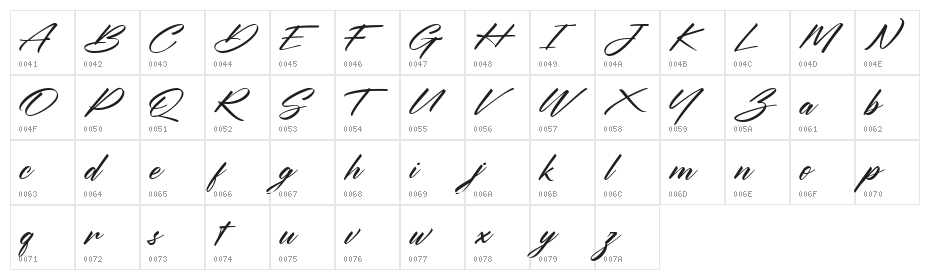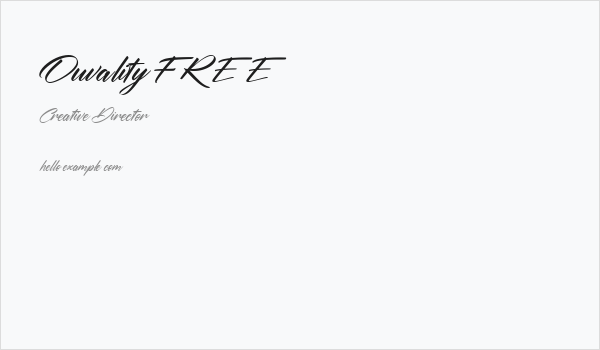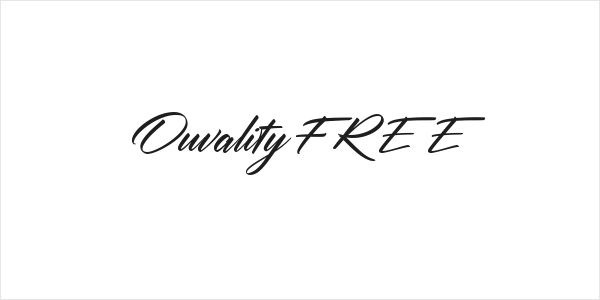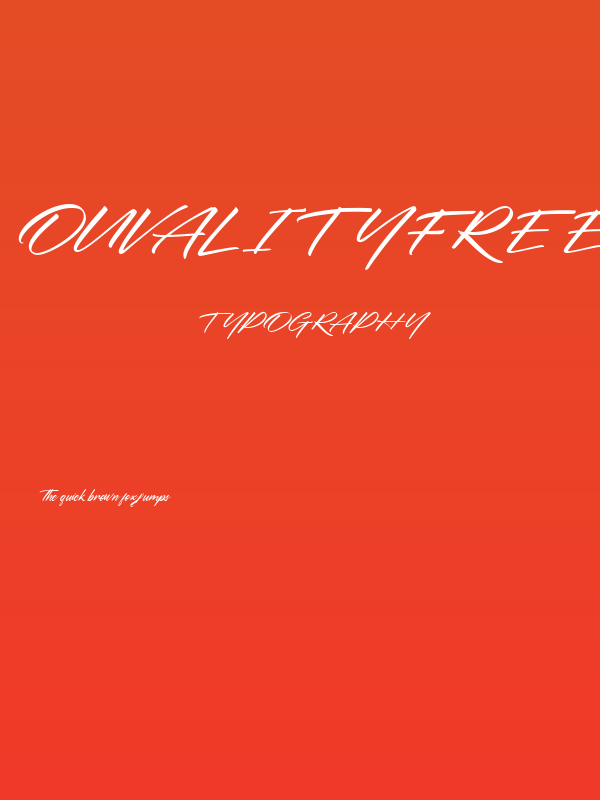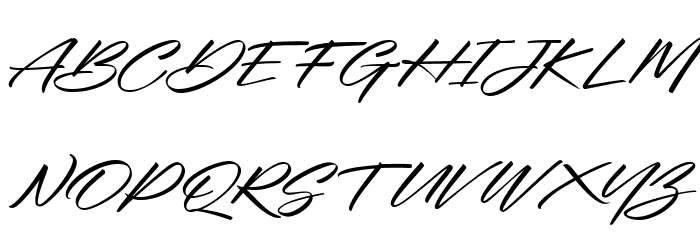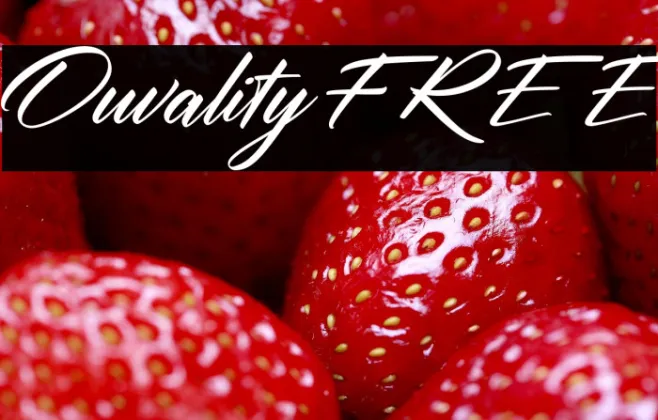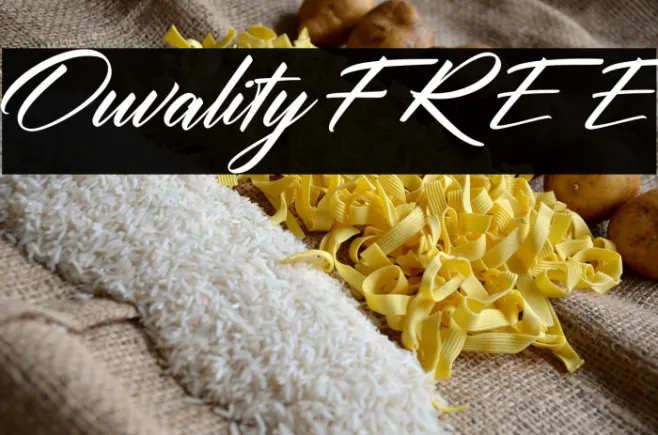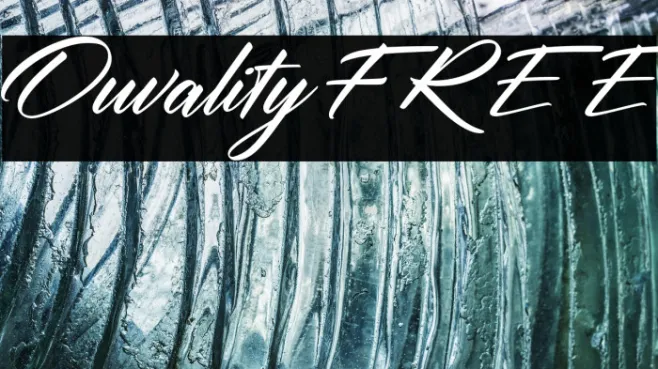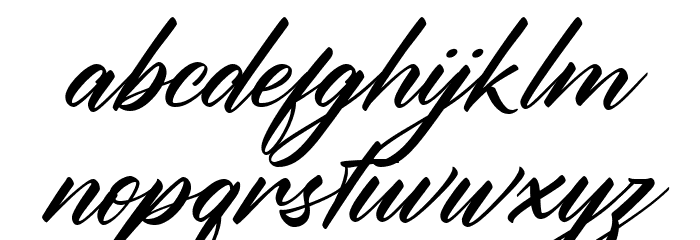
Ouvality FREE Font
Ouvality FREE Description
This font features a dynamic and elegant script style, characterized by its fluid, cursive strokes that mimic natural handwriting. The uppercase letters are slightly slanted with a consistent flow, while the lowercase letters exhibit a more pronounced slant and flourish, adding a touch of sophistication. The font maintains a balanced weight, providing a sense of rhythm and movement across the text. The characters are well-spaced, ensuring readability without compromising the artistic flair. This font is ideal for projects that require a personal, yet polished touch.